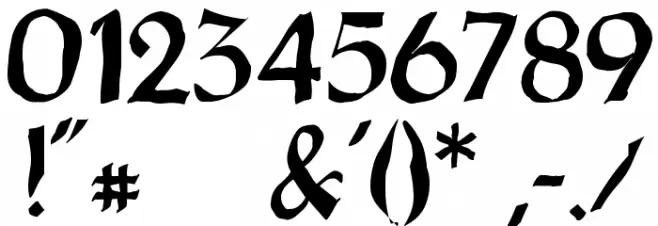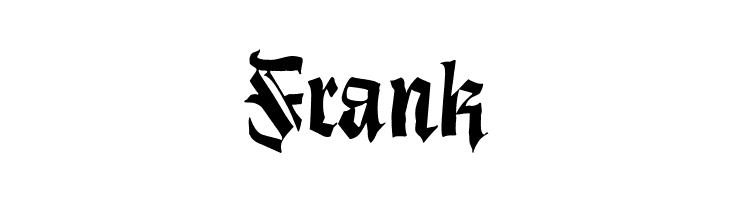
DirtyThinkwitz Font
DirtyThinkwitz Description
This font embodies a bold and dramatic style, reminiscent of traditional Blackletter typefaces. The characters are sharply angular with pronounced serifs and intricate detailing, giving it a gothic and medieval appearance. The uppercase letters are particularly ornate, with strong vertical strokes and decorative flourishes, while the lowercase letters maintain a consistent style with slightly less embellishment. The numerals and special characters follow the same aesthetic, ensuring a cohesive look across all glyphs. This font is ideal for projects that require a historical or formal touch, such as invitations, certificates, or branding that seeks to convey a sense of tradition and authority.
A bold, gothic-style Blackletter font with intricate detailing from Uncategorized fonts.
- Proposed Projects: Ideal for historical documents, formal invitations, branding, and certificates.
- Overall Style: Gothic, Medieval
- Use Case: Headlines, Logos, Decorative text